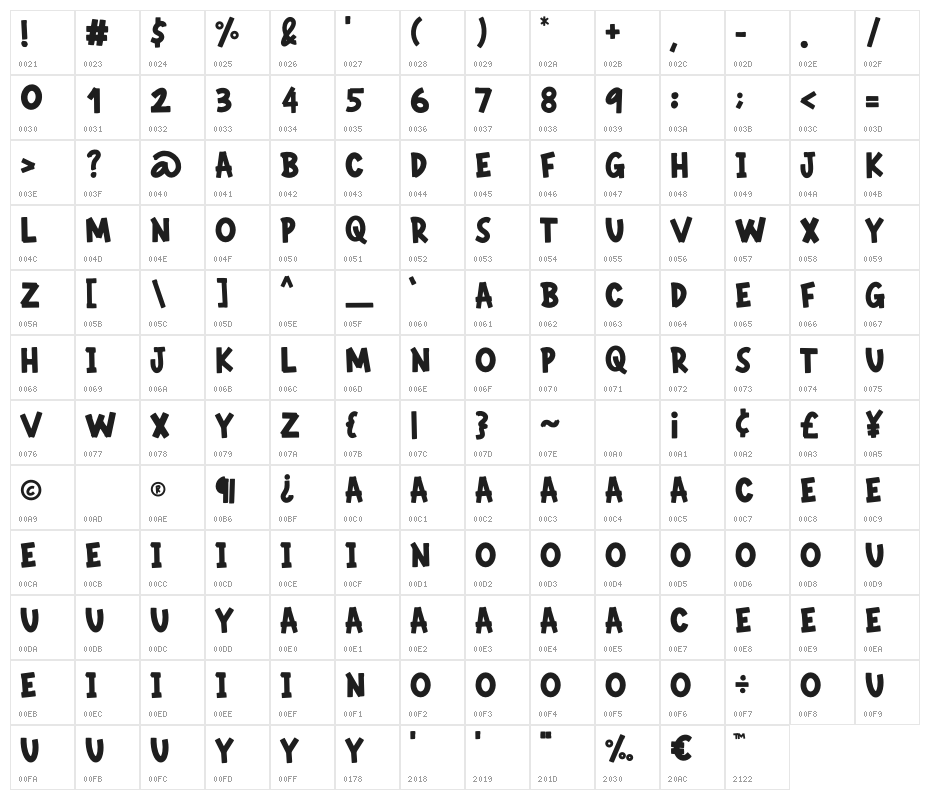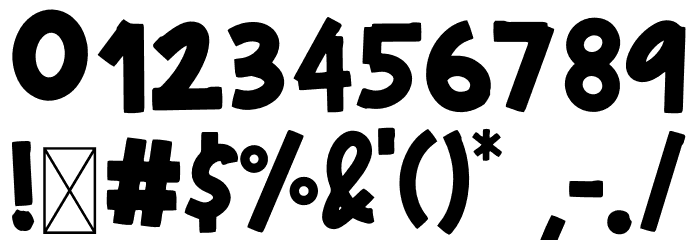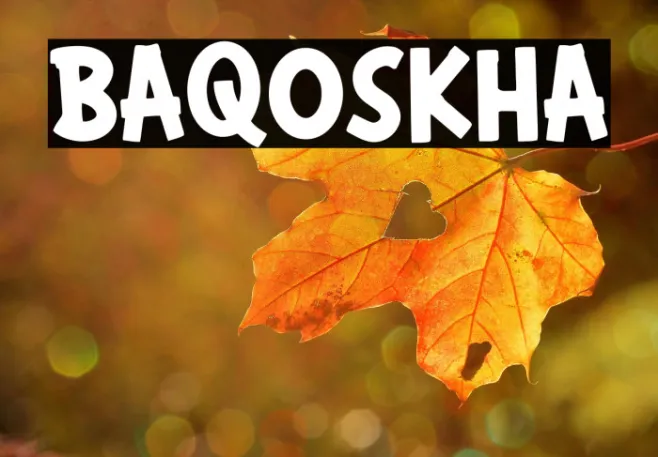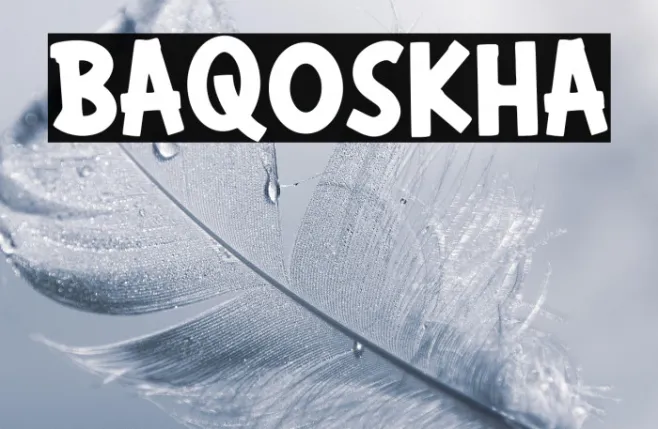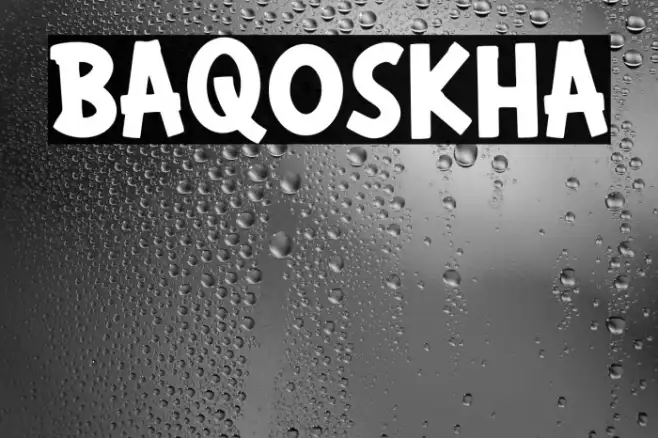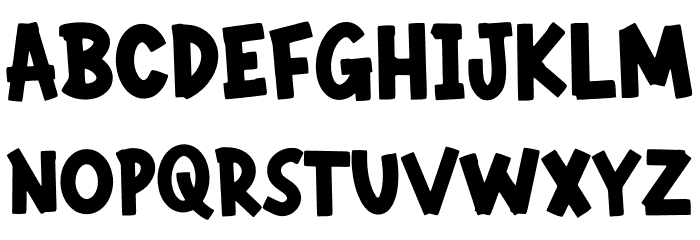
BAQOSKHA Font
BAQOSKHA Description
This font features a bold and playful design with thick, uneven strokes that give it a hand-drawn appearance. The characters are slightly irregular, adding a whimsical and informal touch. The uppercase letters are prominent and assertive, while the lowercase letters maintain the same playful style. Numbers and special characters are consistent with the overall design, ensuring a cohesive look across all elements. The font's unique style makes it stand out, making it suitable for creative and fun projects.
| Overall Style | Playful, Whimsical, Hand-drawn |
| Proposed Projects | Ideal for children's books, comic strips, playful branding, and creative posters. |